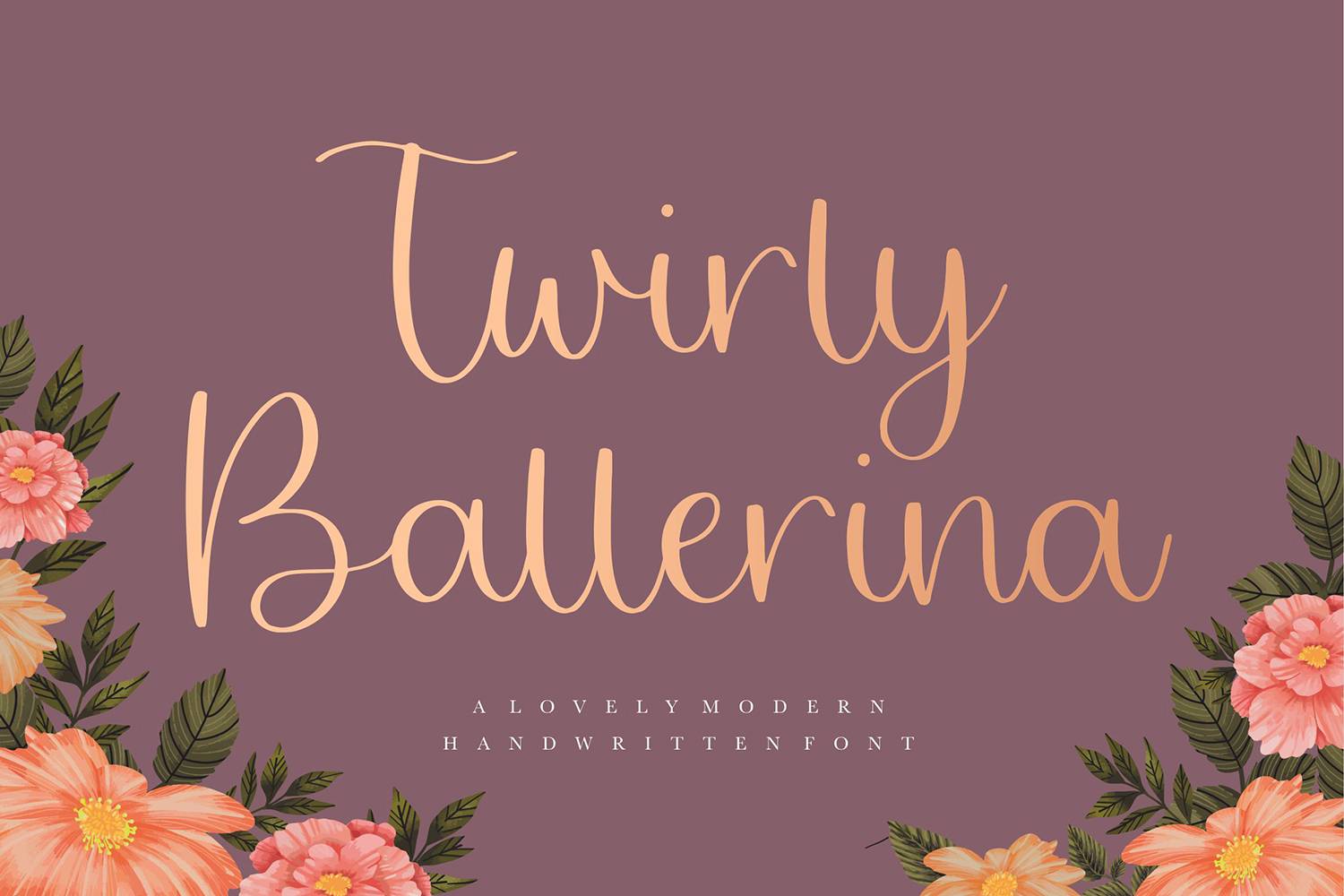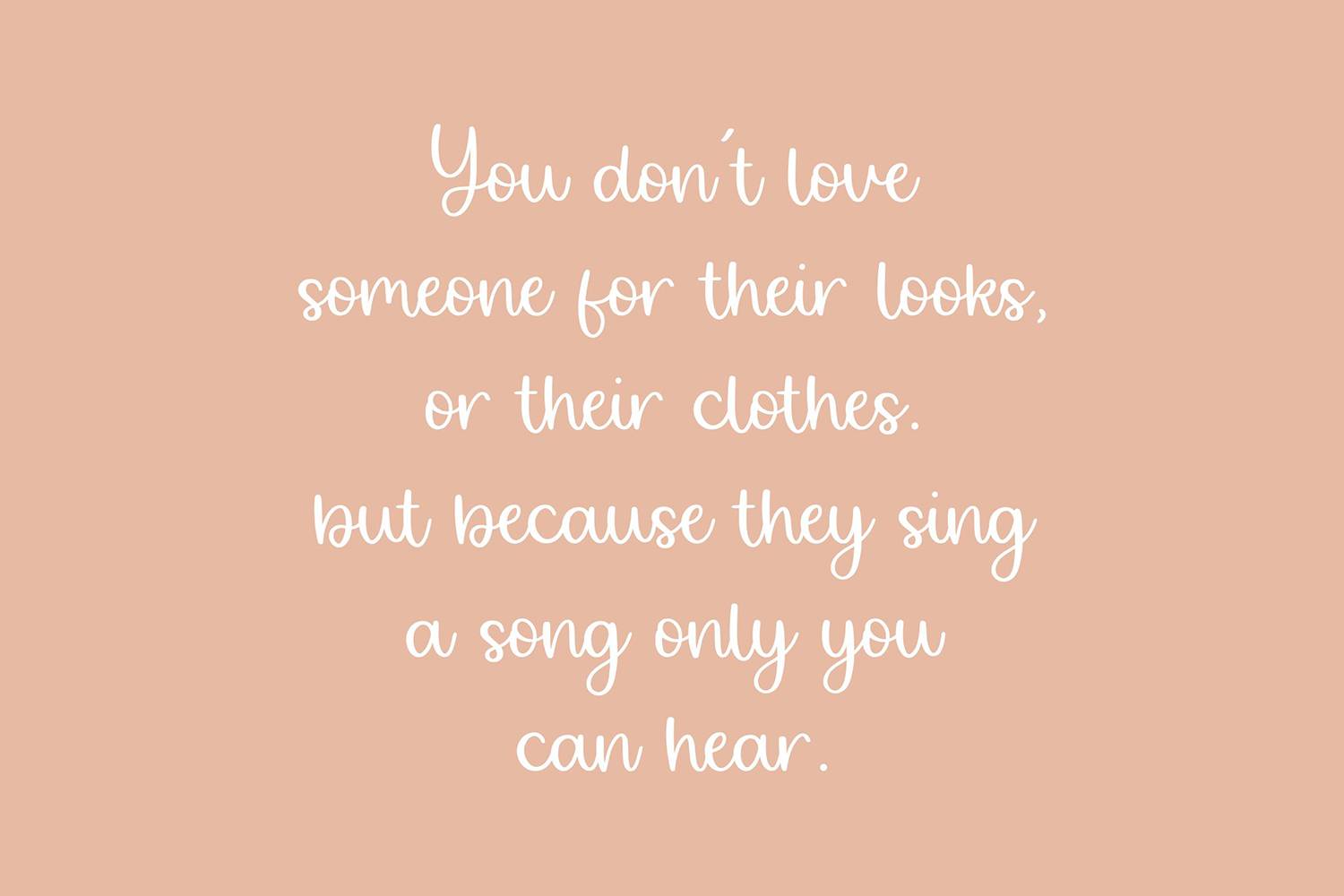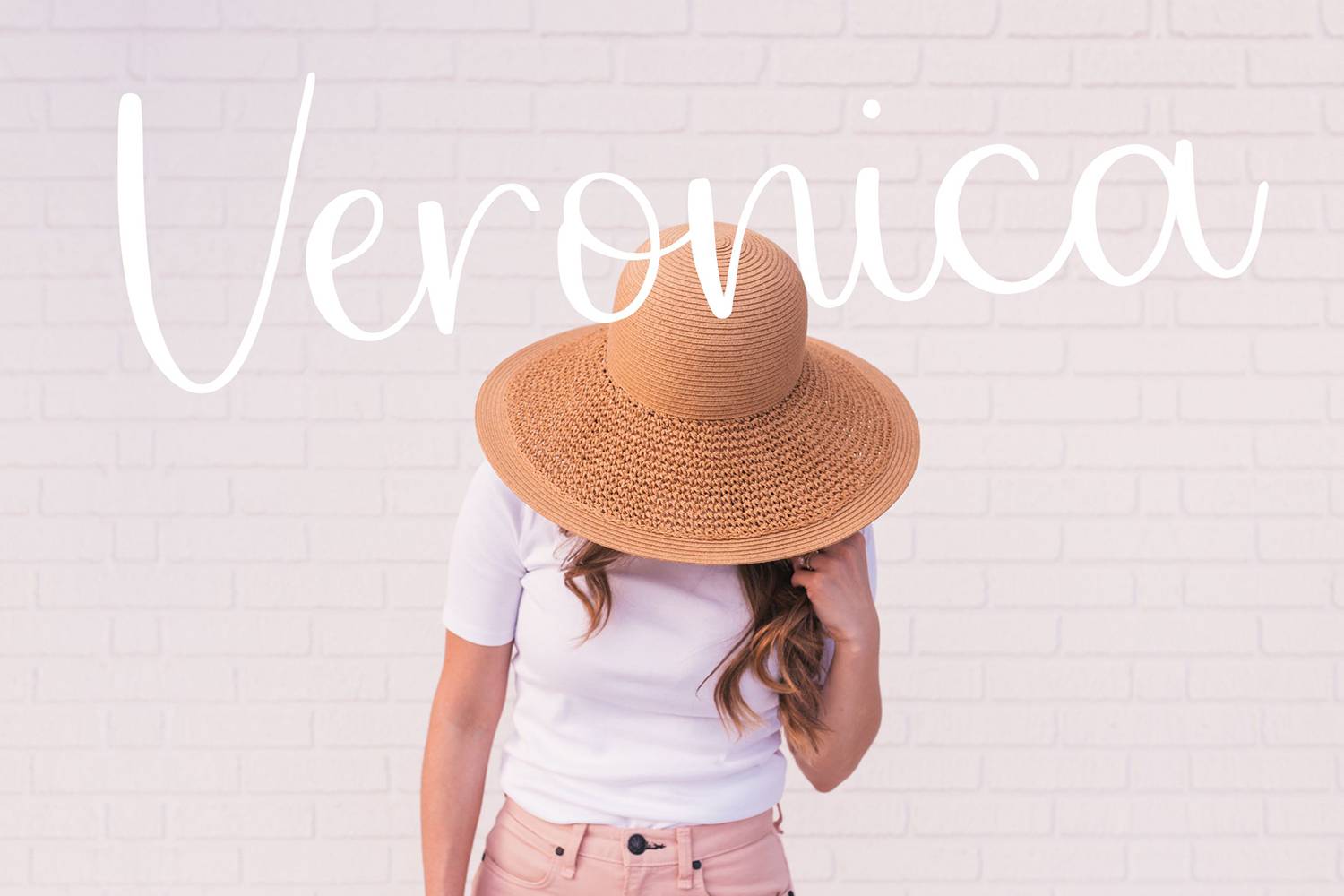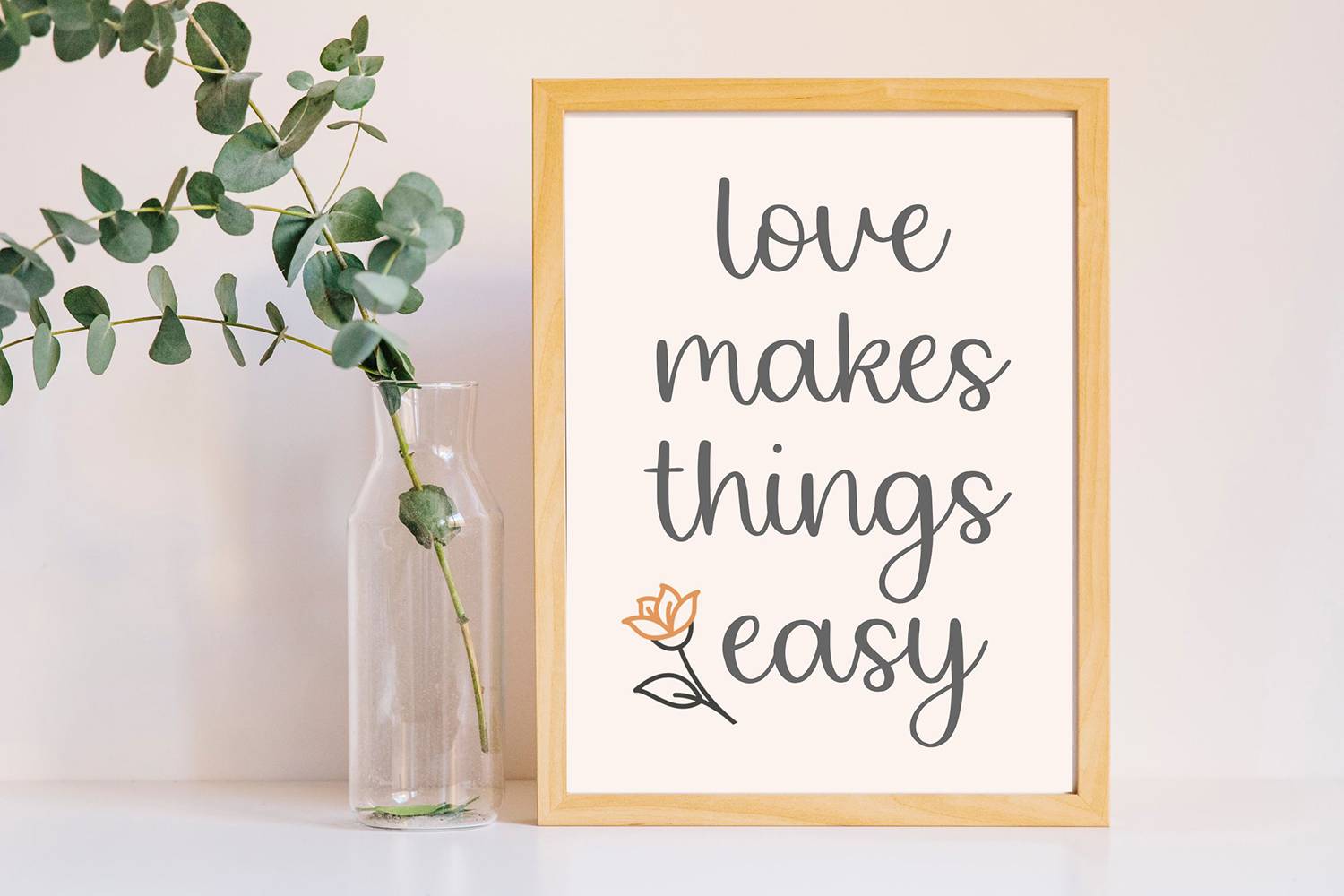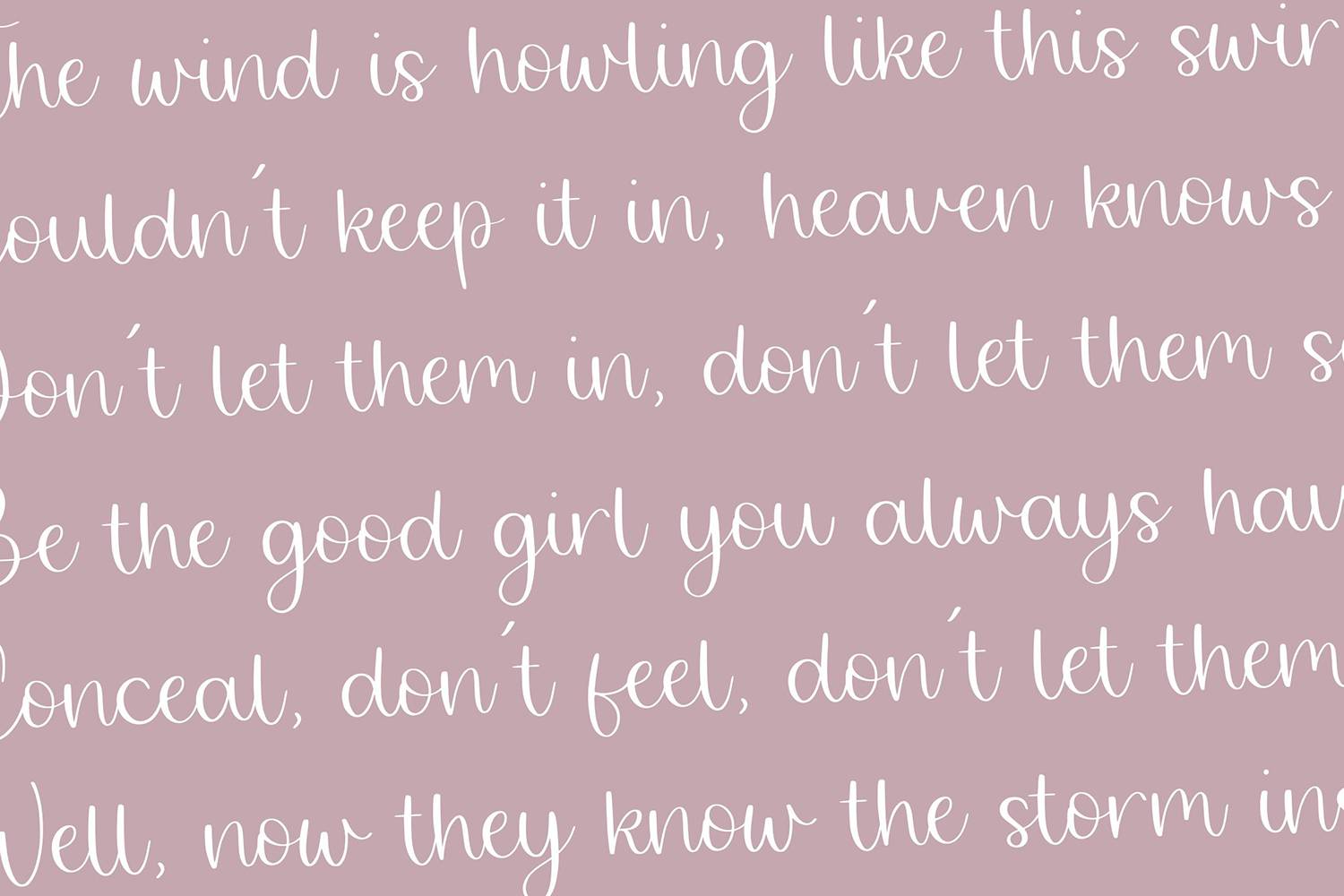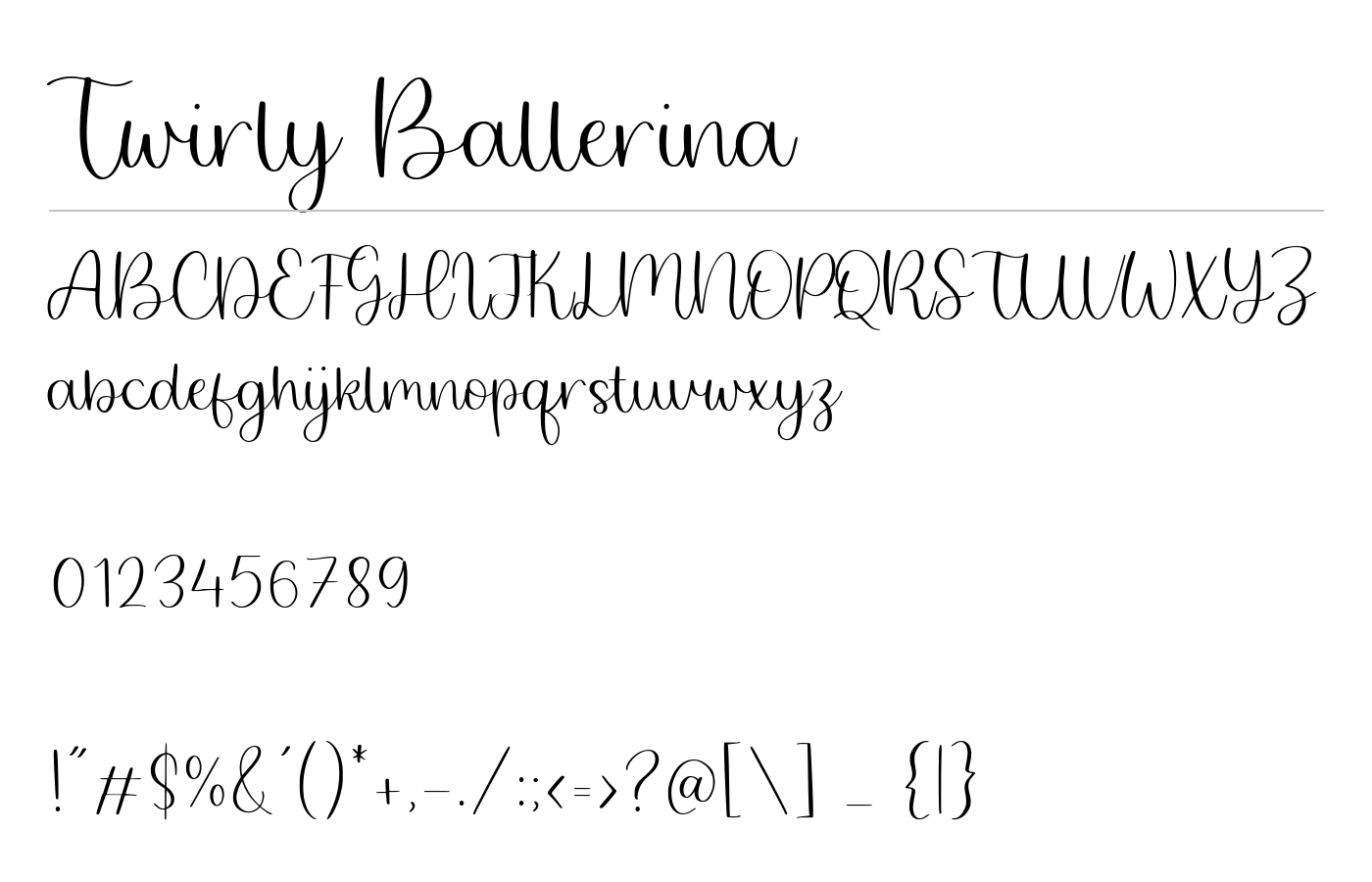
Twirly Ballerina is an elegant script font with a delicate, handwritten feel characterized by its slender, flowing strokes and playful swirls. Its light weight and airy design make it perfect for feminine, creative, or whimsical branding, invitations, and logos. This font brings a graceful, charming personality that works especially well in fashion, beauty, and lifestyle projects needing a touch of soft sophistication.
Twirly Ballerina Font
About Twirly Ballerina Font